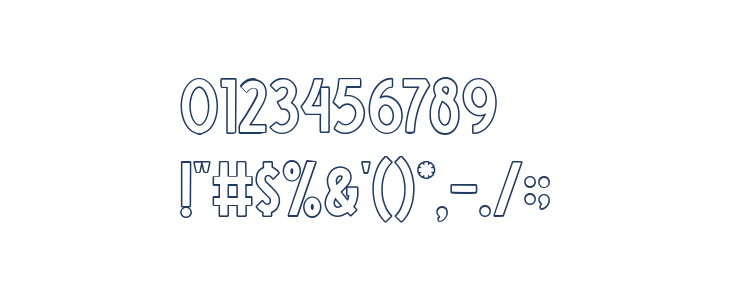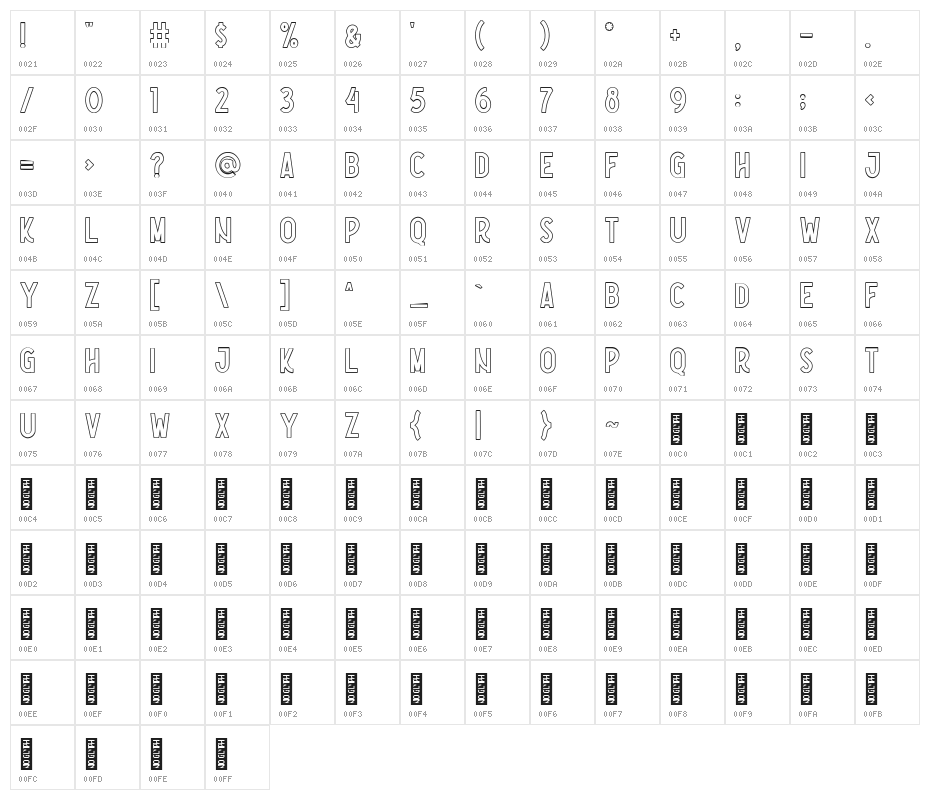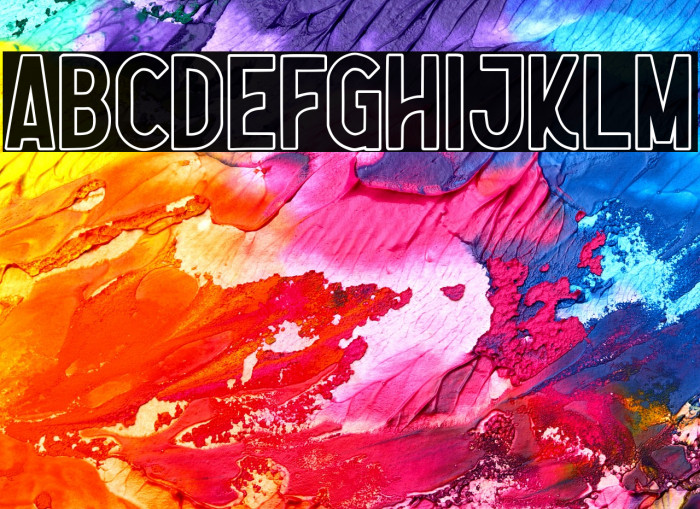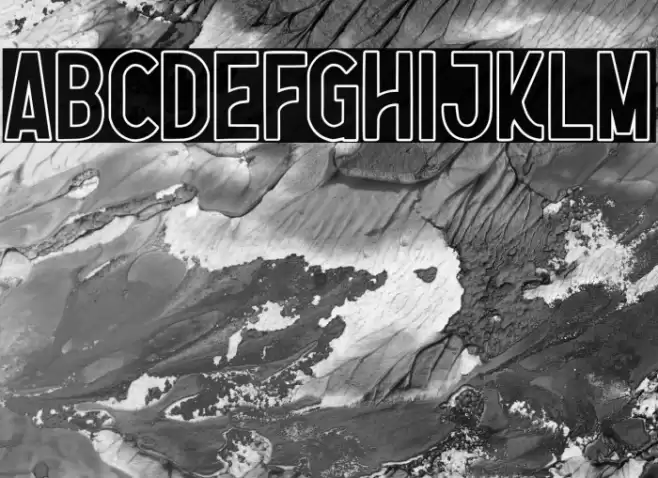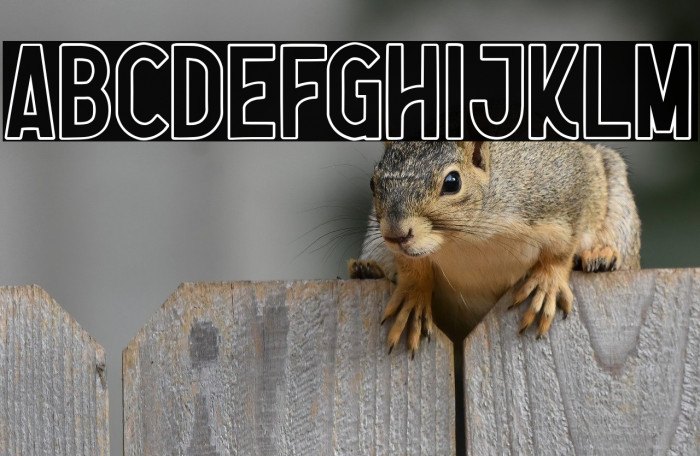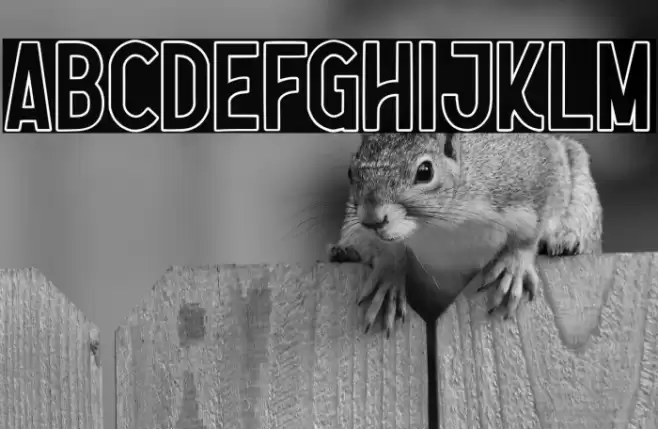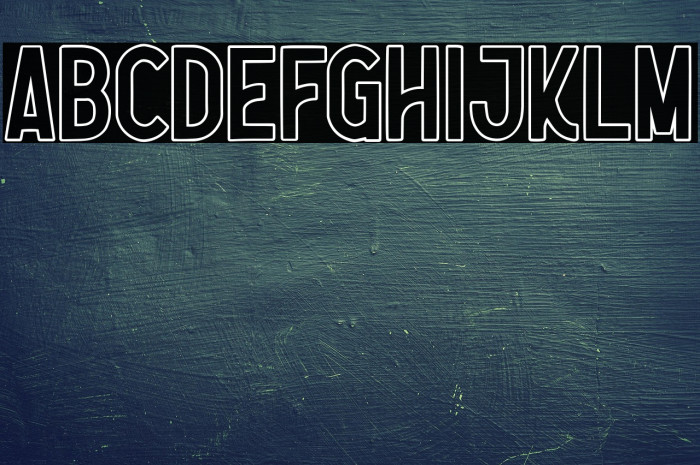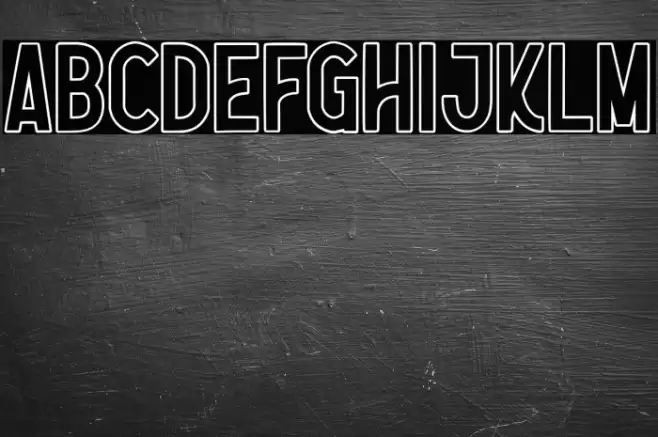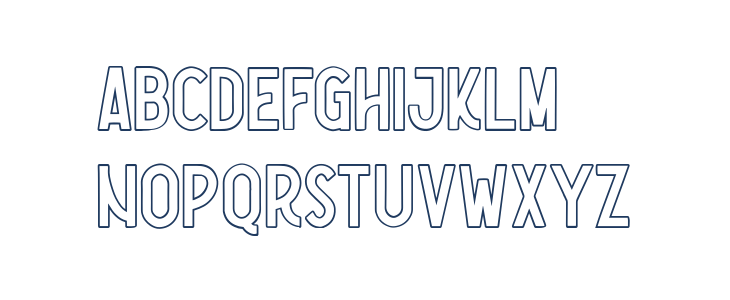
Nootdorp Font
Nootdorp Description
This font features a bold, outlined style with a modern and clean aesthetic. The characters are uppercase and lowercase, with a consistent stroke width that gives it a uniform appearance. The design is geometric, with straight lines and sharp angles, making it highly legible. The numbers and special characters maintain the same outlined style, ensuring a cohesive look across all elements. This font is versatile, suitable for a variety of design projects that require a contemporary and eye-catching typeface.